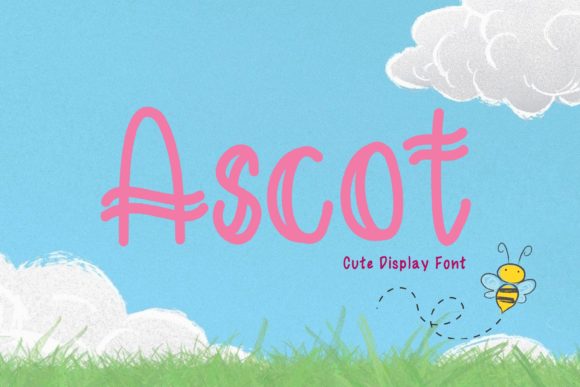
Introducing Ascot Font: The Jolly, Cute, and Friendly Display Font
Are you looking for a font that can add a touch of friendliness and approachability to your design projects? Look no further than Ascot Font, a delightful display font that is perfect for a wide range of applications. In this article, we’ll take a closer look at Ascot Font, its features, and how you can use it to elevate your designs.
What is Ascot Font?
Ascot Font is a display font that is designed to be jolly, cute, and friendly. Its playful and approachable style makes it perfect for designs that require a personal touch. Whether you’re creating a logo, wedding invitation, or social media graphic, Ascot Font is sure to bring a smile to your audience’s face.
Key Features of Ascot Font
So, what makes Ascot Font so special? Here are some of its key features:
- Jolly and friendly style: Ascot Font has a playful and approachable style that is sure to capture your audience’s attention.
- Cute and charming: The font’s cute and charming design makes it perfect for designs that require a personal touch.
- Highly versatile: Ascot Font can be used for a wide range of applications, from logos and wedding invitations to headings, t-shirts, and more.
- Easily readable: Despite its playful style, Ascot Font is easily readable, making it perfect for designs that require a clear and concise message.
Uses of Ascot Font
Ascot Font is an incredibly versatile font that can be used for a wide range of applications. Here are some ideas to get you started:
- Logos: Ascot Font is perfect for creating logos that require a personal touch. Its playful style makes it ideal for brands that want to convey a sense of friendliness and approachability.
- Wedding invitations: Add a touch of whimsy and romance to your wedding invitations with Ascot Font. Its cute and charming design is sure to set the tone for a memorable and special day.
- Headings: Use Ascot Font to create eye-catching headings for your blog posts, articles, and social media graphics.
- T-shirts and apparel: Ascot Font is perfect for creating fun and playful designs for t-shirts, hoodies, and other apparel.
- Letterhead and signage: Use Ascot Font to create professional-looking letterhead and signage that still conveys a sense of friendliness and approachability.
- Labels and badges: Ascot Font is perfect for creating labels and badges that require a personal touch.
- Posters and flyers: Use Ascot Font to create eye-catching posters and flyers that grab your audience’s attention.
Tips for Using Ascot Font
Here are some tips for using Ascot Font effectively in your designs:
- Pair it with a neutral font: Pair Ascot Font with a neutral font to create visual interest and balance in your design.
- Use it sparingly: Use Ascot Font sparingly to avoid overwhelming your design. It’s perfect for headings and titles, but may not be suitable for large blocks of text.
- Experiment with colors: Ascot Font looks great in a variety of colors. Experiment with different colors to find the one that works best for your design.
In conclusion, Ascot Font is a jolly, cute, and friendly display font that is perfect for a wide range of applications. Its playful and approachable style makes it ideal for designs that require a personal touch. With its highly versatile design and easily readable style, Ascot Font is sure to become a favorite in your font collection.
- What is Ascot Font?: Ascot Font is a display font that is designed to be jolly, cute, and friendly.
- What can I use Ascot Font for?: Ascot Font can be used for a wide range of applications, including logos, wedding invitations, headings, t-shirts, and more.
- Is Ascot Font easy to read?: Yes, Ascot Font is easily readable, making it perfect for designs that require a clear and concise message.